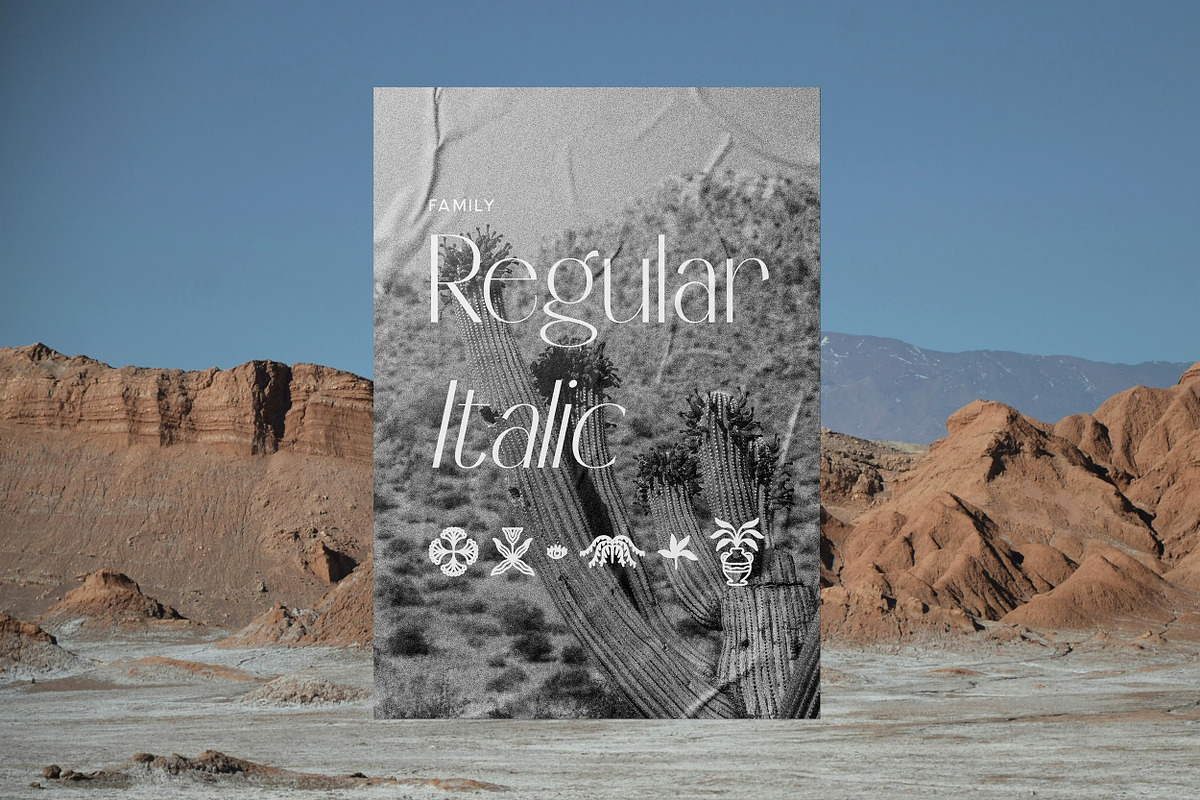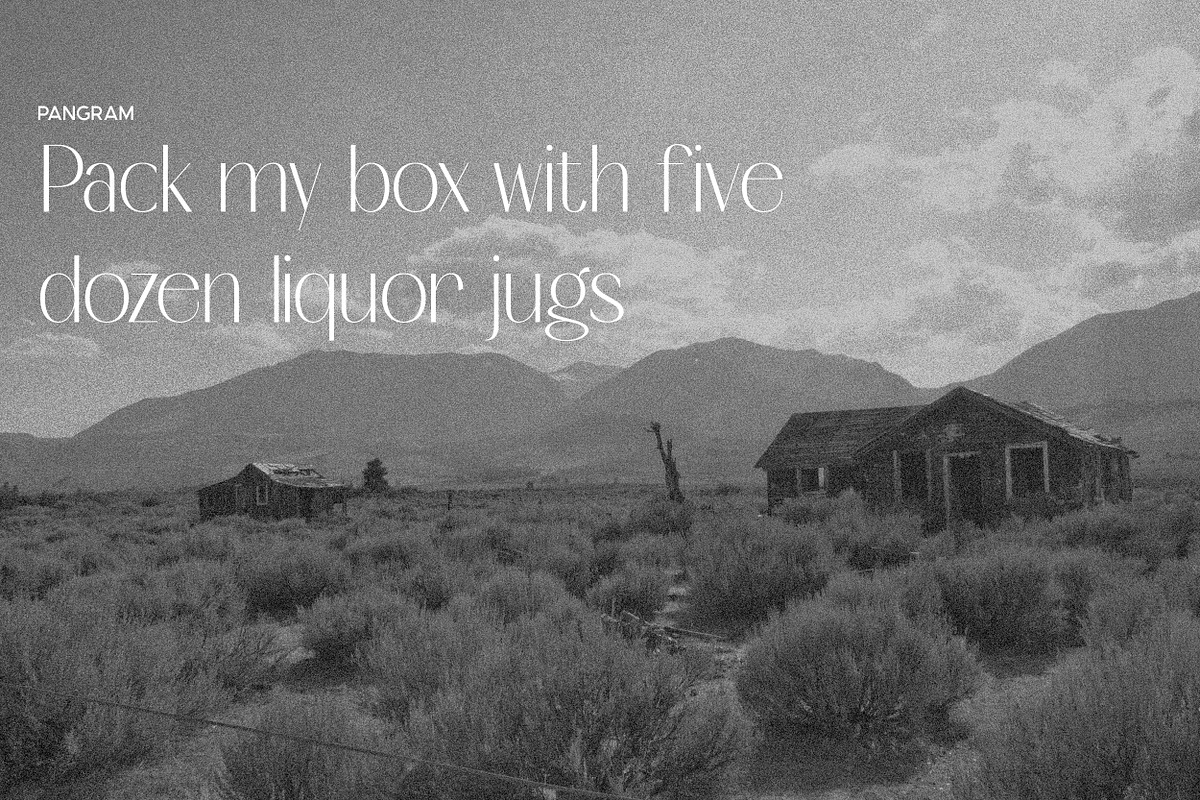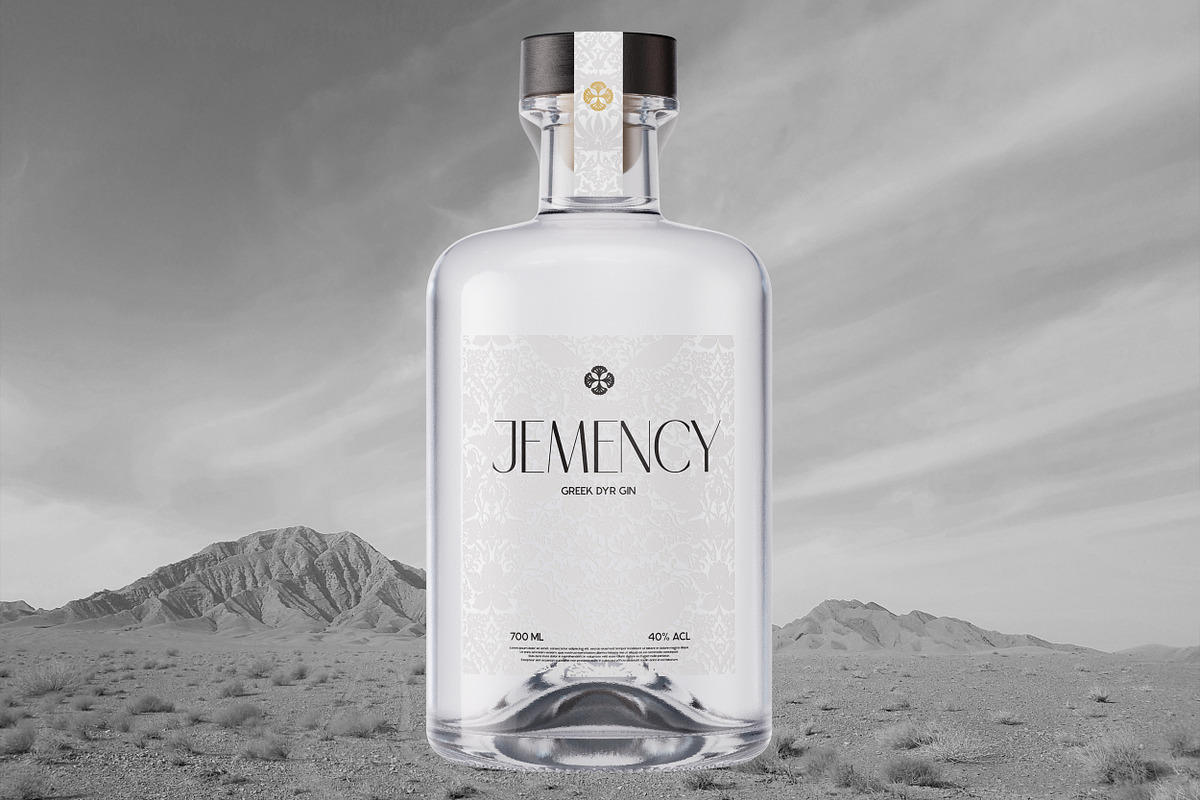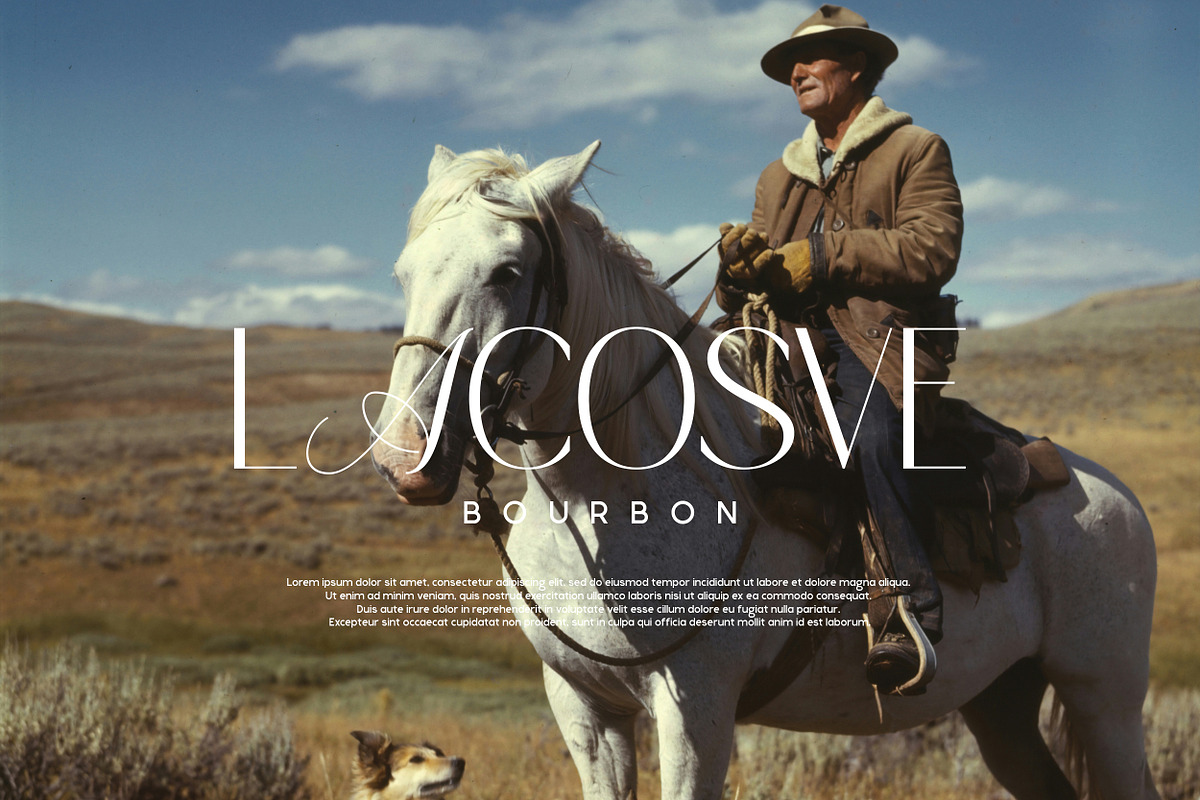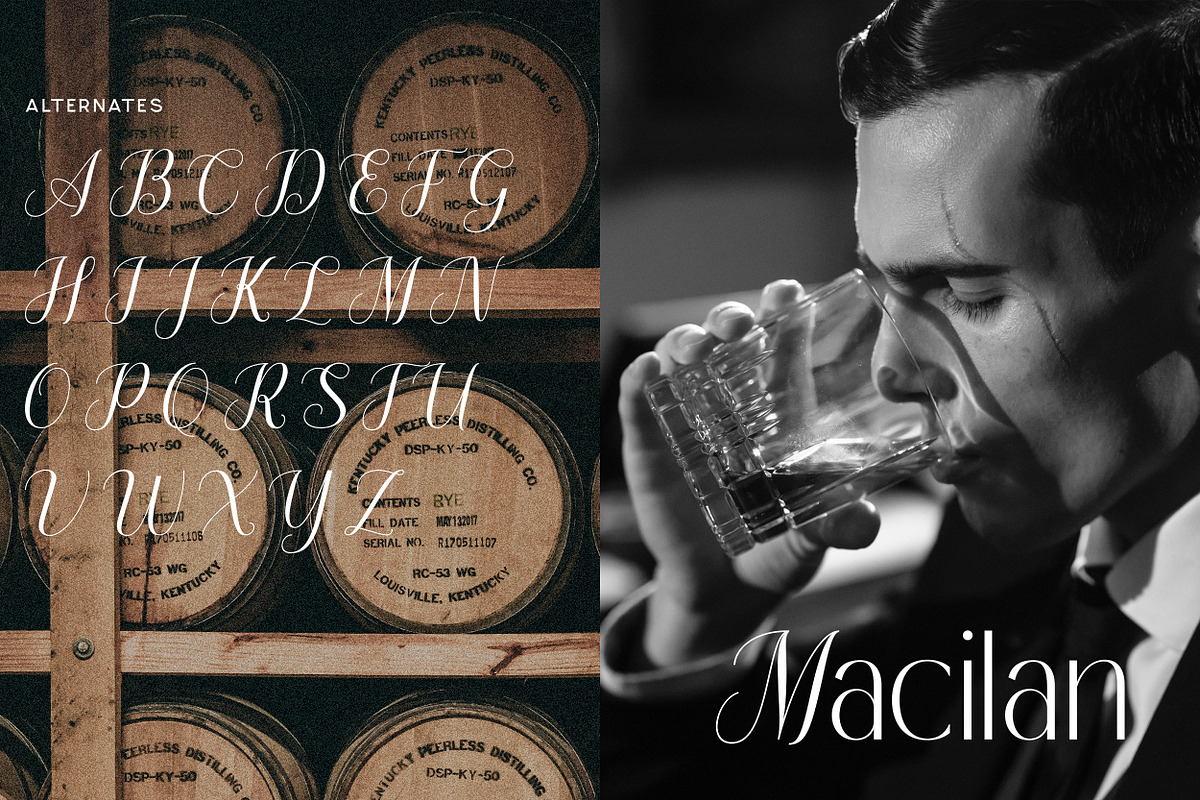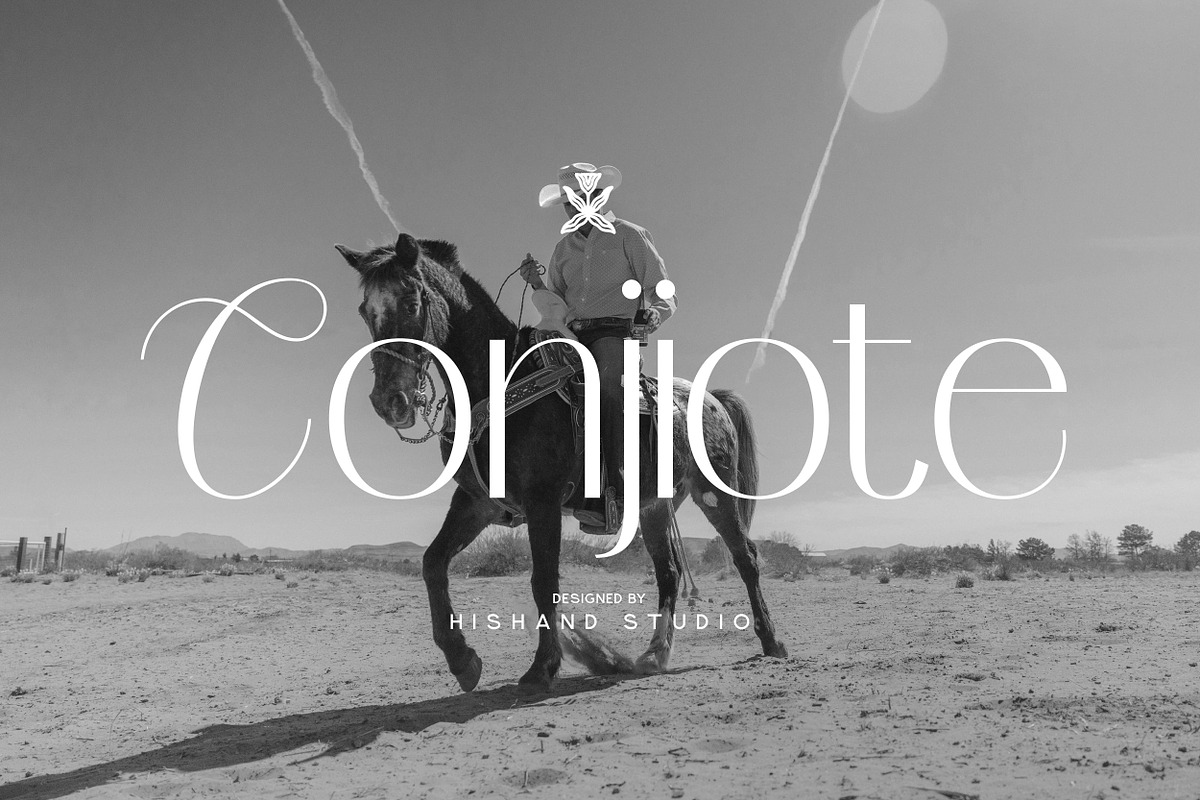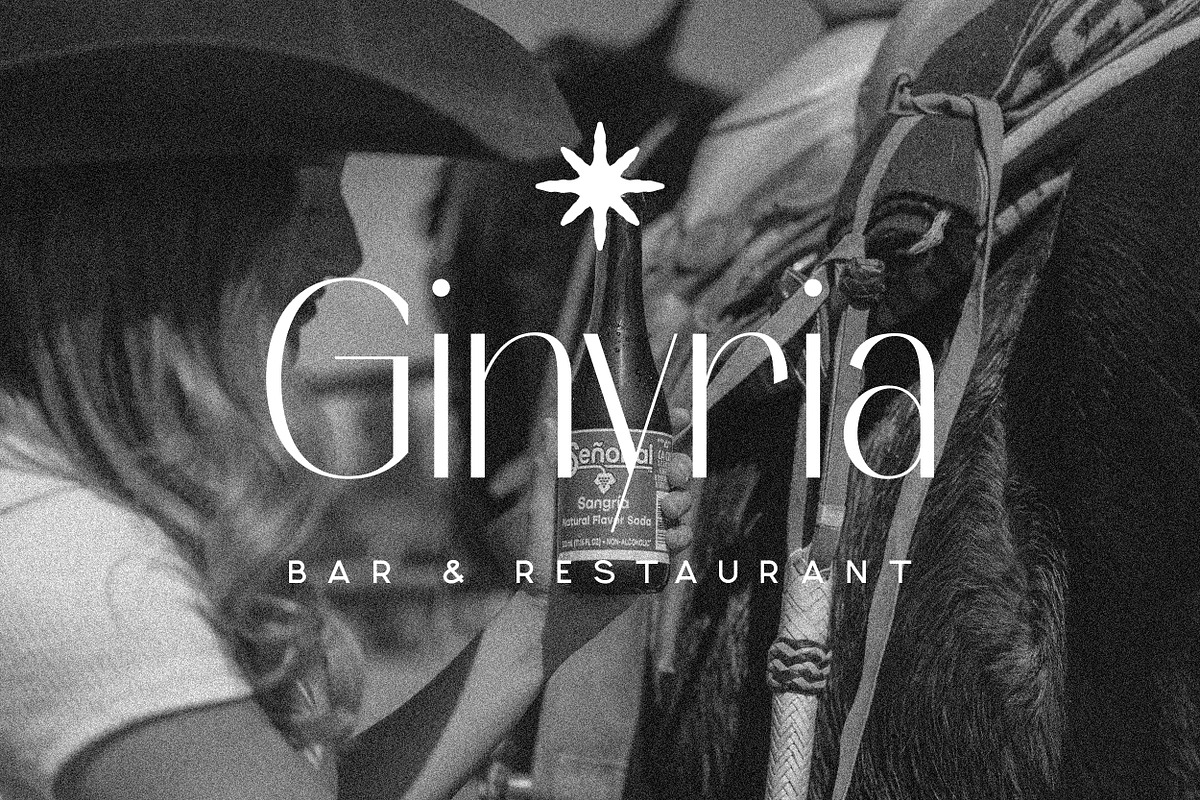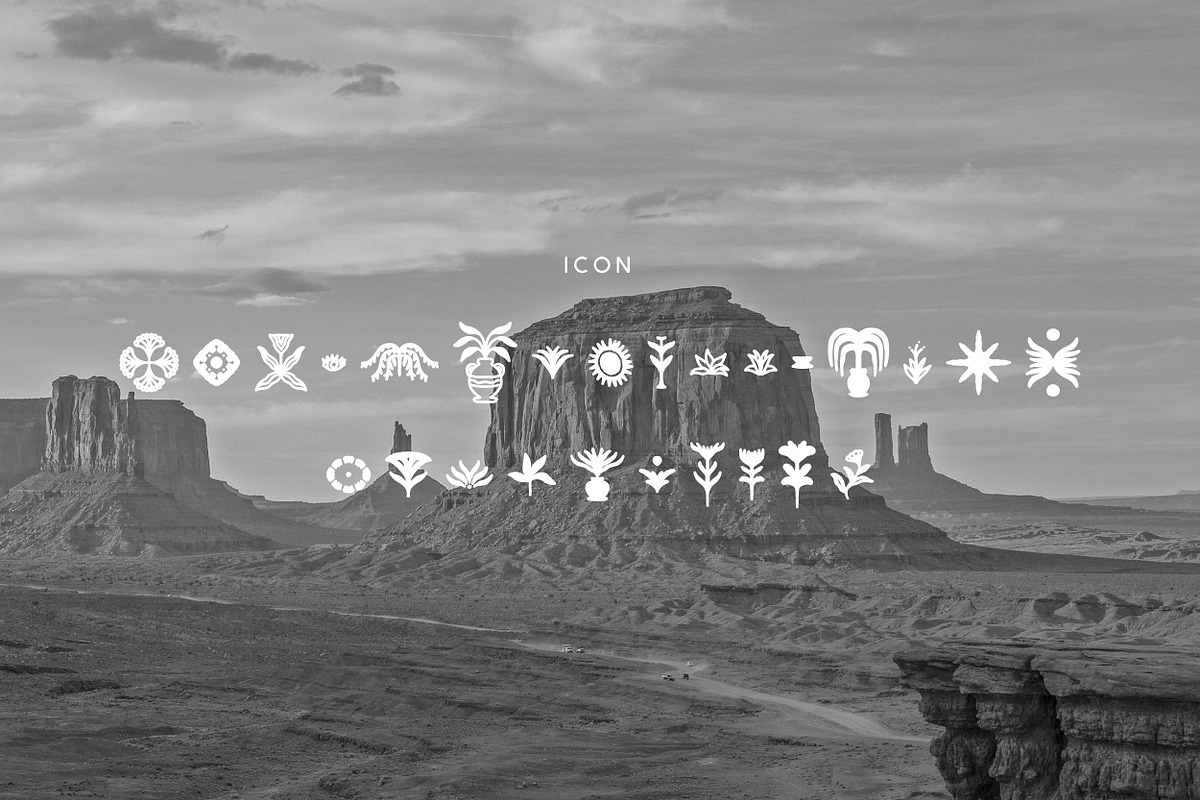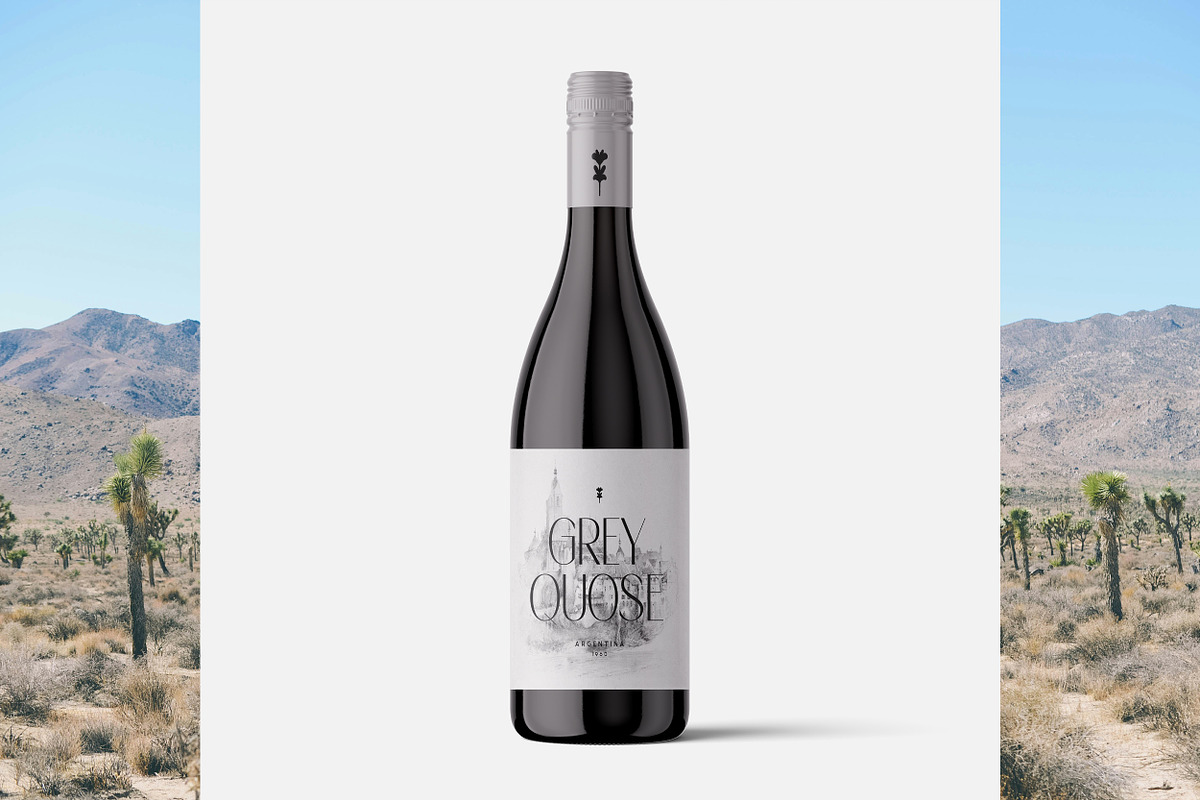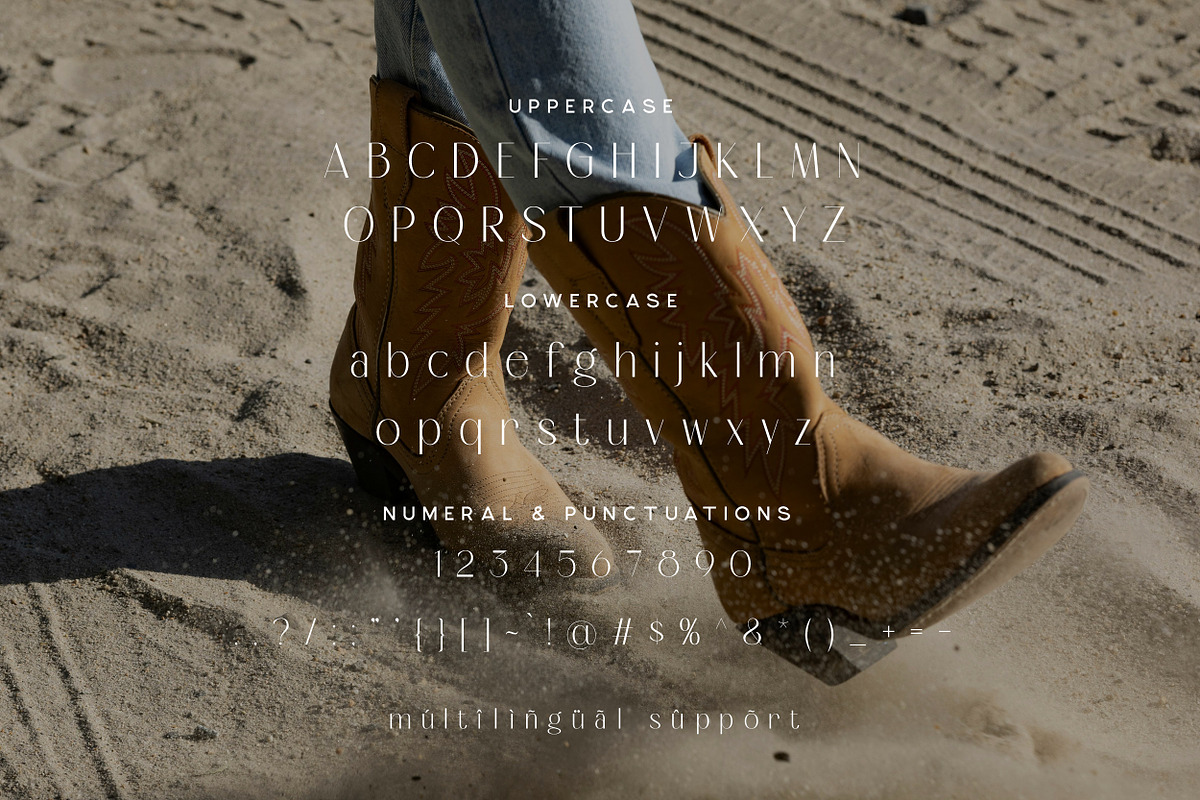
Conjiote Classy Sans Serif
Conjiote is a refined sans serif font that gracefully blends clean modernity with the flair of elegant script. Designed to evoke sophistication and charm, Conjiote balances minimalism with artistic curves, making it perfect for branding, wedding invites, social media graphics, and editorial designs. Its sans serif base offers clarity and versatility, while subtle script-inspired touches add a fluid, handwritten elegance that feels both timeless and on-trend. The result is a classy, aesthetic typeface that stands out without shouting ideal for who want a font that's stylish yet readable. Complete with
alternates
regular
italic
icon
kerning